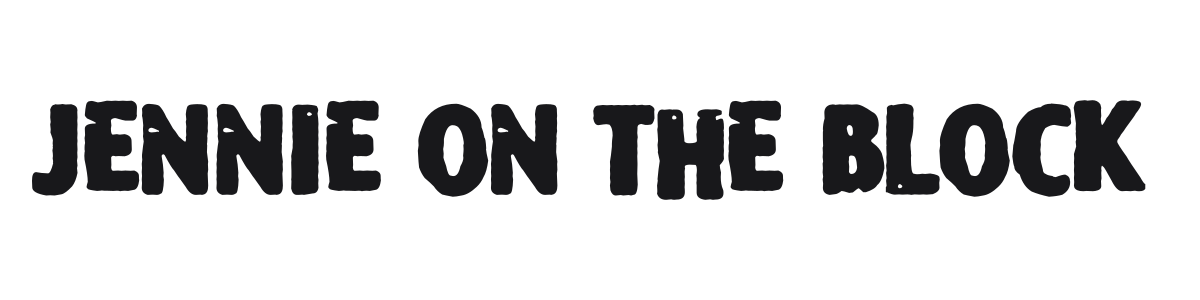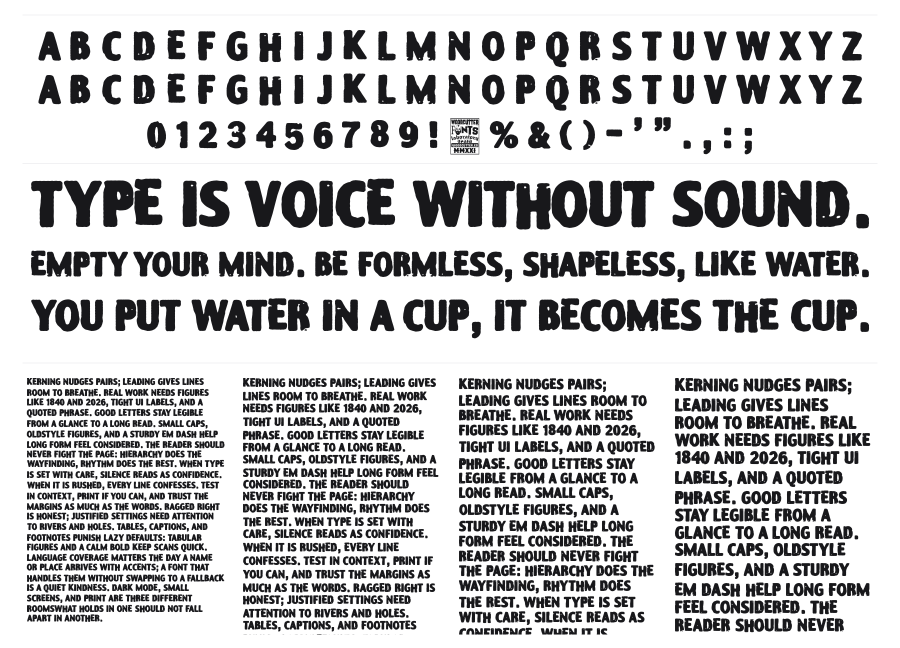
Jennie on the Block
Jennie on the Block is a heavy distressed sans-serif by Woodcutter with thick, chunky strokes broken up by rough ink erosion and surface texture. The bold, condensed proportions give it a stamp-like quality, as if pulled from worn signage or a degraded block print. It carries strong urban energy suited to music branding, poster headlines, and anything that needs a raw, handmade edge.